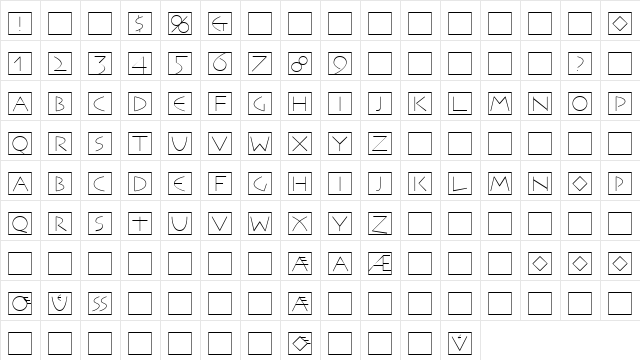
RememberManhattan September
Design Context for RememberManhattan Typeface
RememberManhattan is a composed and adaptable typeface that performs quietly and consistently across a wide range of design contexts.